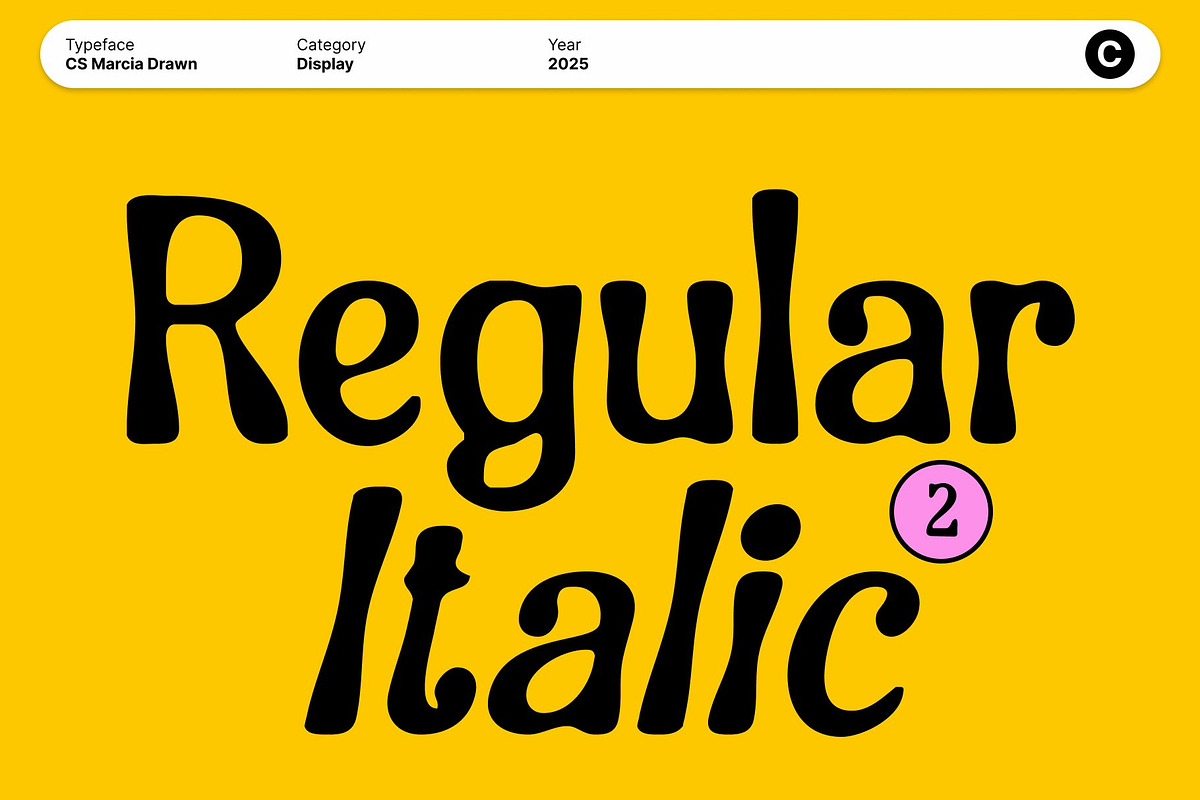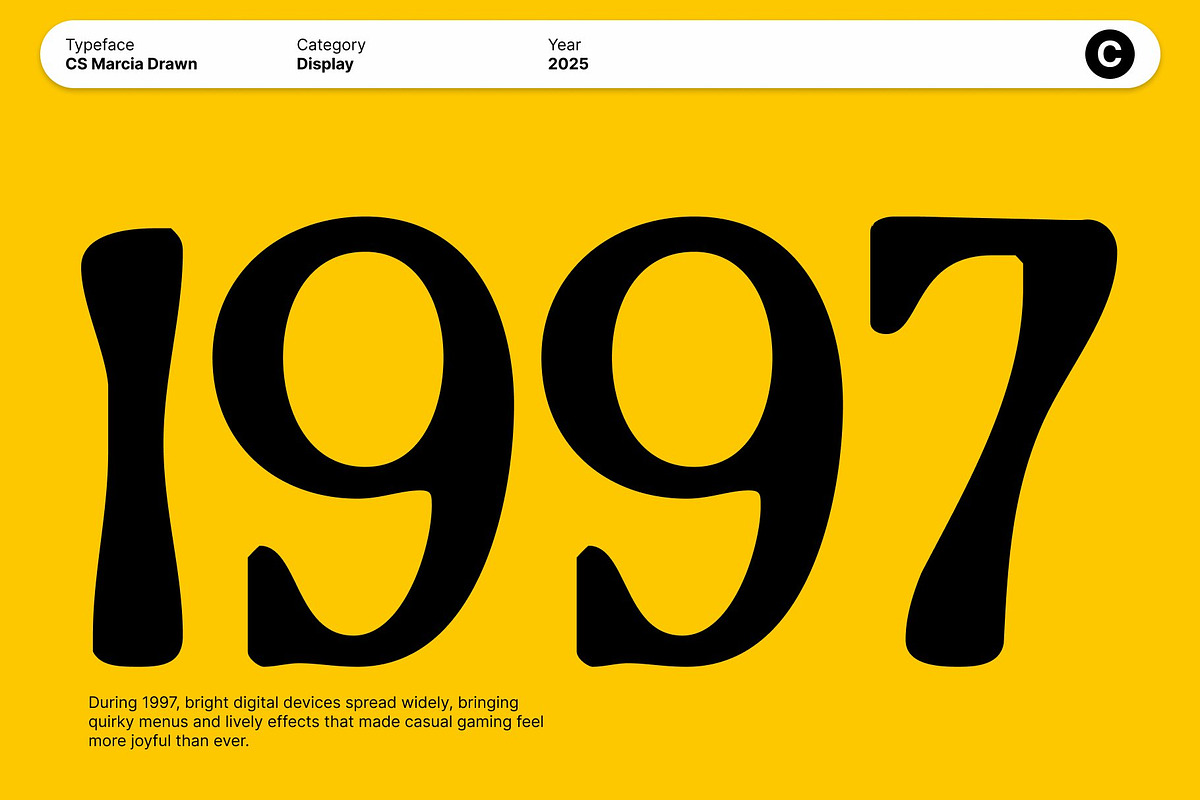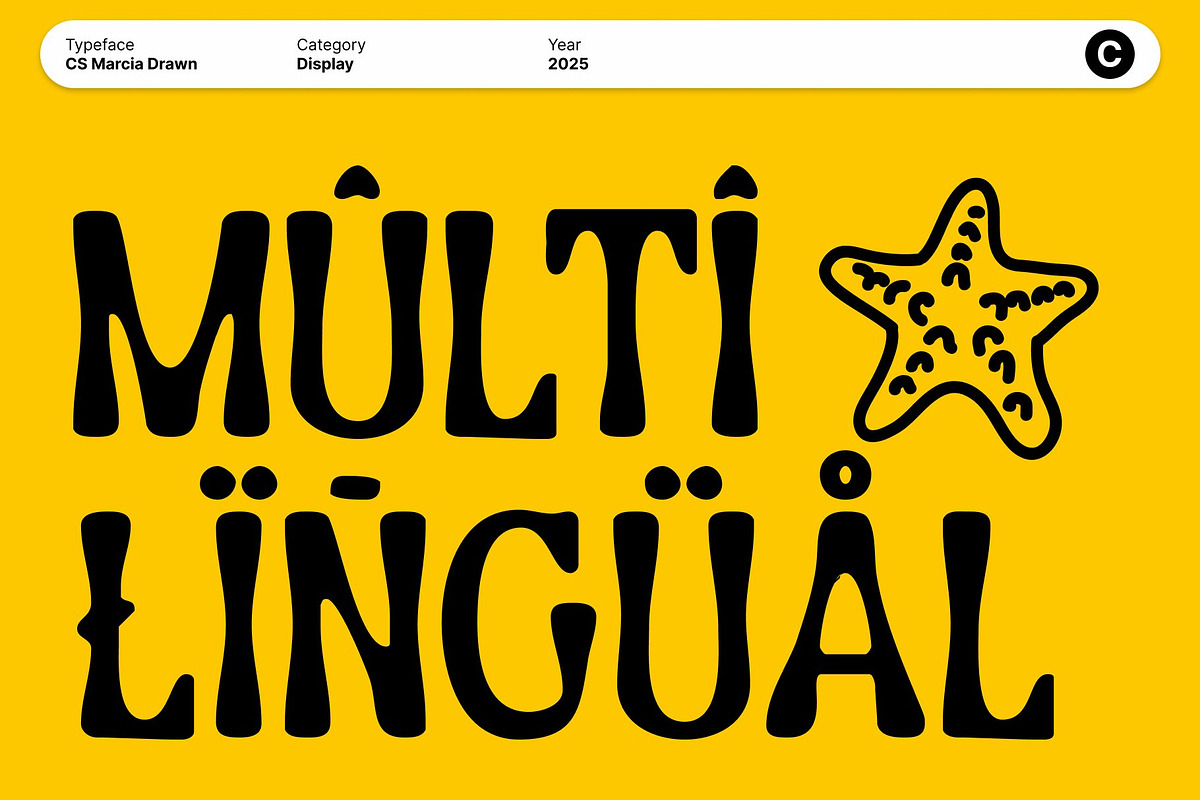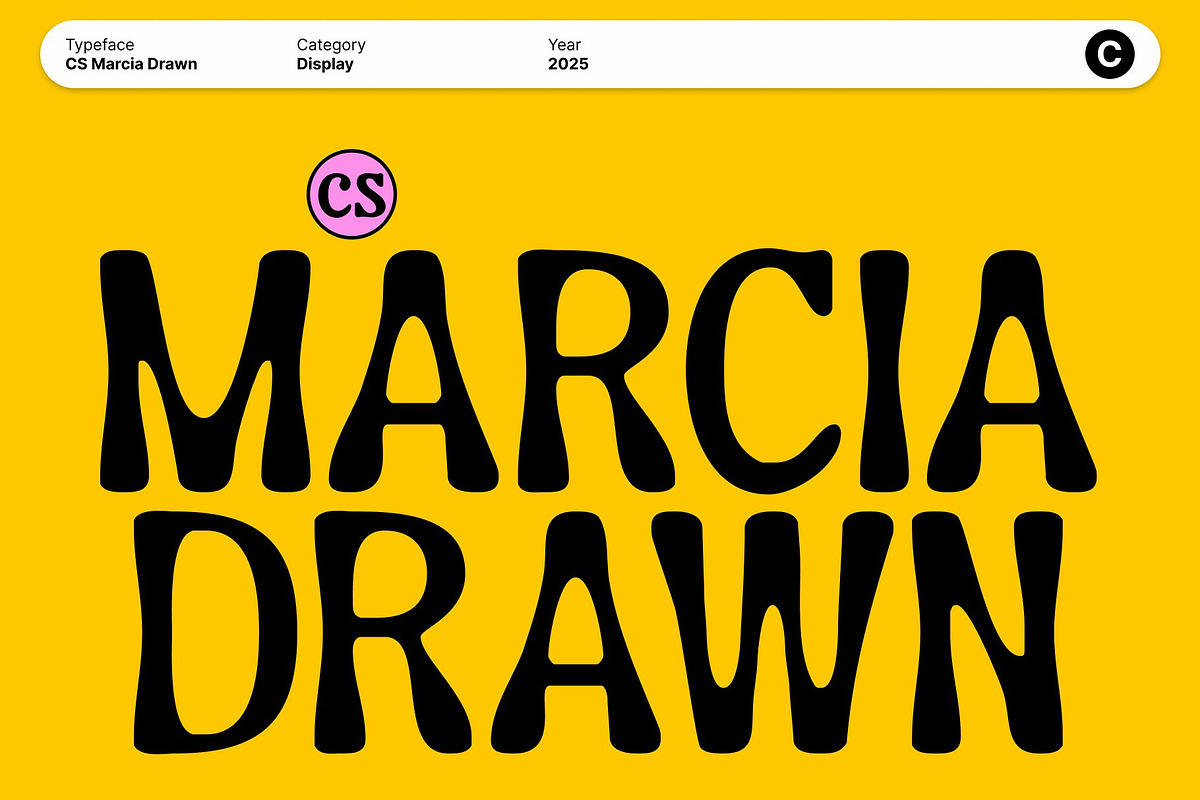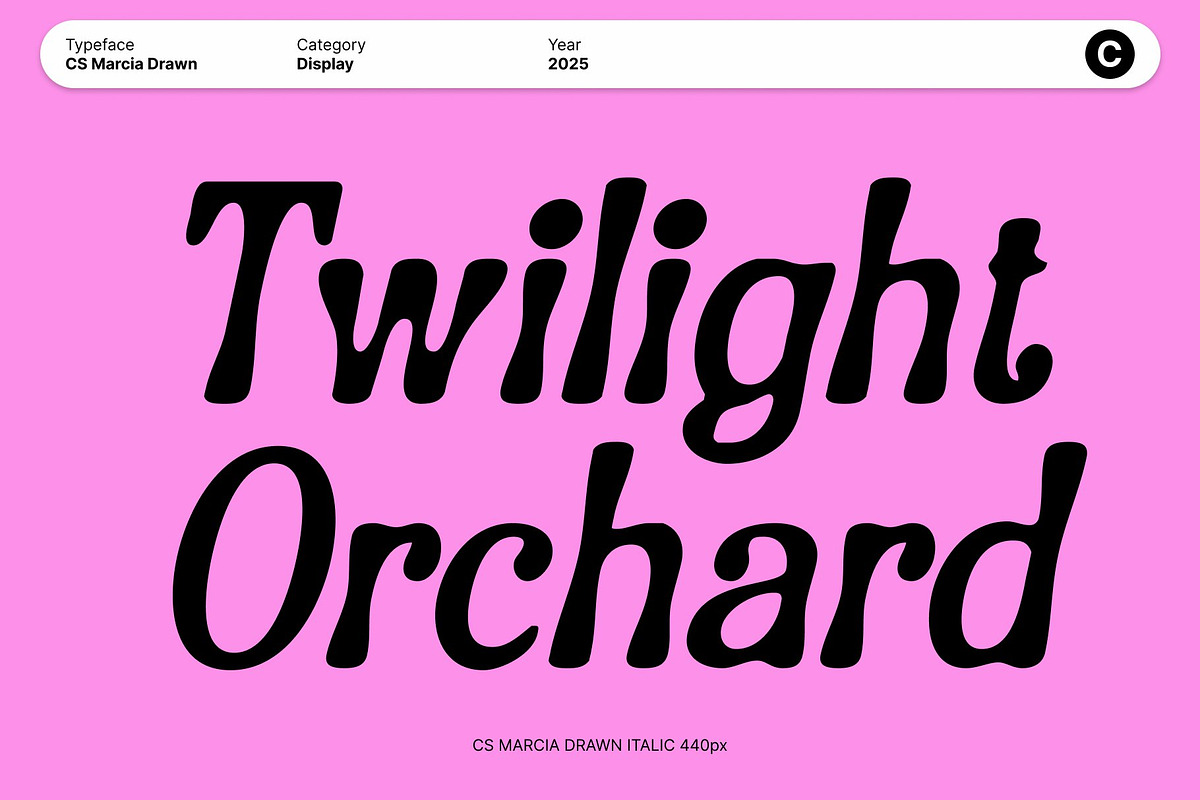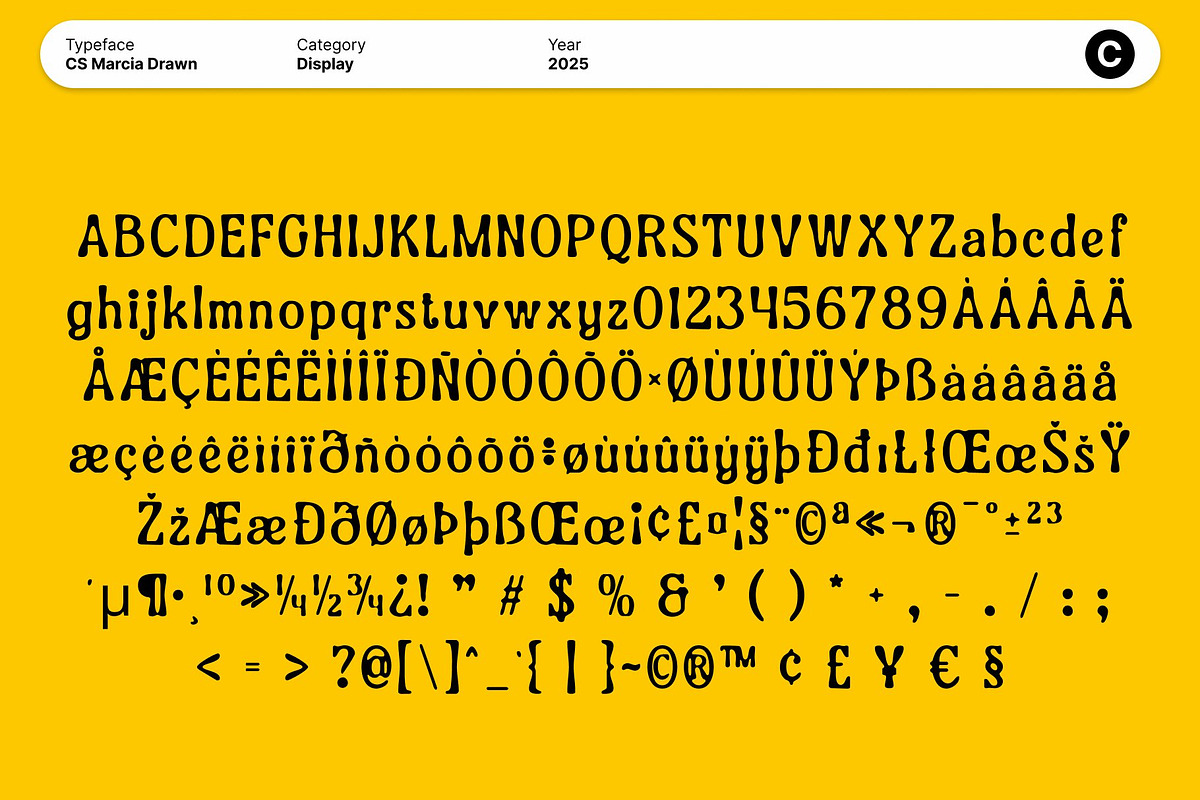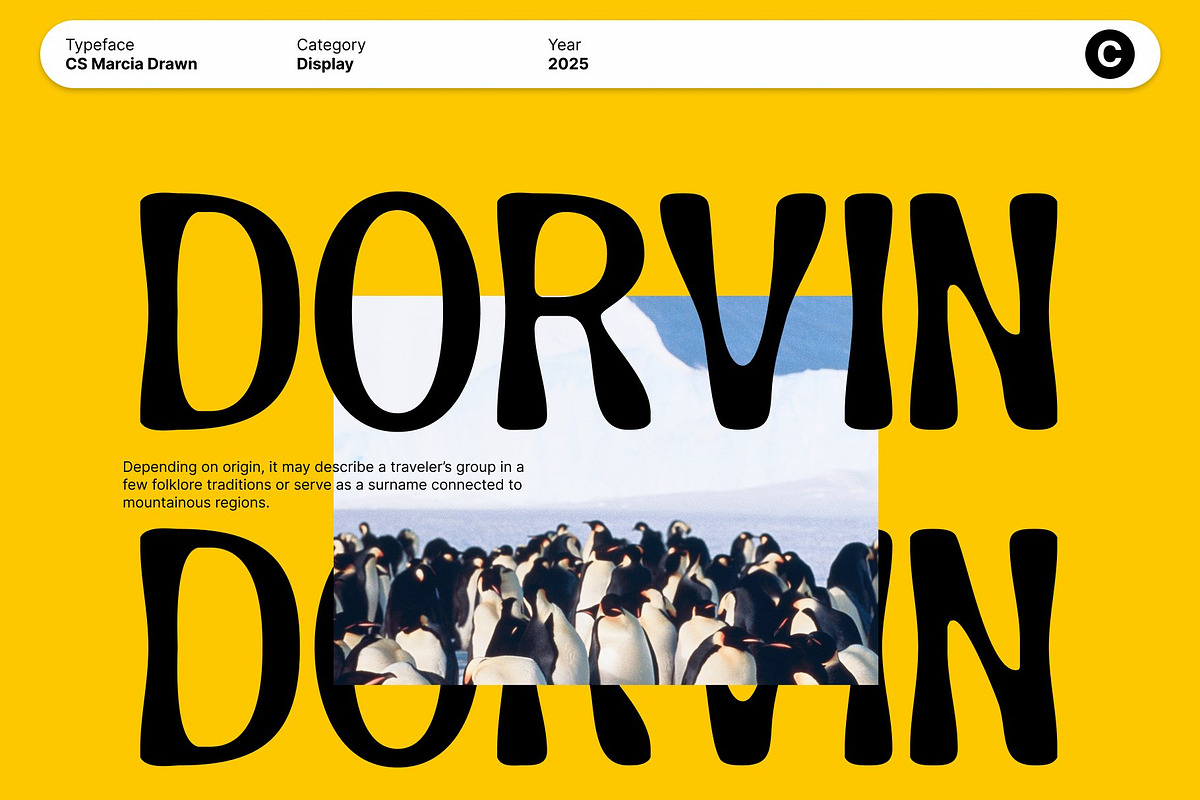
CS Marcia Drawn
CS Marcia Drawn – Funky Display Font with Artistic Hand-Drawn Expression
Creative Letterforms That Demand Attention This is a creative and expressive funky display font designed to make every letter feel alive. Its artistic, slightly unconventional forms give it a bold personality that instantly captures attention. With its hand-drawn charm and energetic silhouette, this font brings a distinctive look to any design that aims to feel fresh, creative, and full of character.
Hand-Drawn Texture for Authentic Expression The drawn texture adds a layer of authenticity, enhancing the font’s expressive and crafted feel. Each letter carries a natural, imperfect rhythm that emphasizes creativity and originality. This organic drawn effect makes feel more personal and artistic, perfect for projects where handcrafted visual identity matters.
Perfect for Editorials, Posters, and Creative Branding Whether you’re designing magazine layouts, expressive posters, or branding for creative industries, provides a strong visual presence. Its funky shapes and standout curves make it ideal for titles, headlines, logos, or any element that needs to project artistic confidence. The font’s unique personality ensures your message stands out in both digital and print formats.
Versatile, Stylish, and Full of Personality Despite its bold artistic nature, remains versatile across various design themes. From lifestyle branding to contemporary art promotions, from music events to quirky social media graphics, this font adapts while maintaining its signature expressive style.
- CS Marcia Drawn Regular
- CS Marcia Drawn Italic